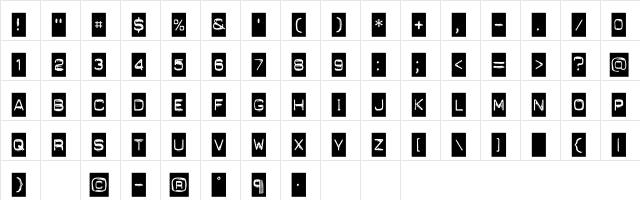
PunchLabel Regular
Design Context for PunchLabel Typeface
PunchLabel offers clean, dependable letterforms without strong stylistic allegiance, making it a practical choice for designers who need flexibility.